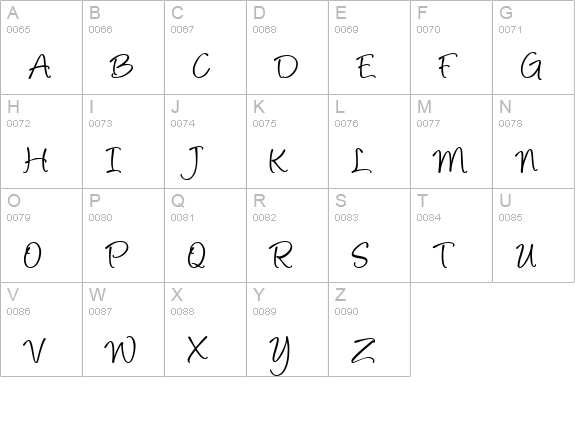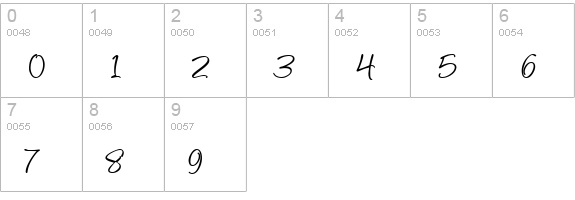
Angelina Font Details
Angelina font is a beautifully crafted typeface that exudes elegance and sophistication. With its delicate curves and graceful lines, this font is perfect for adding a touch of class to any design project. Whether you're creating wedding invitations, branding materials, or social media graphics, Angelina font will elevate your work to the next level. The best part? Angelina font is completely free to download at FontsMarket.com. So go ahead and enhance your designs with this stunning typeface today!